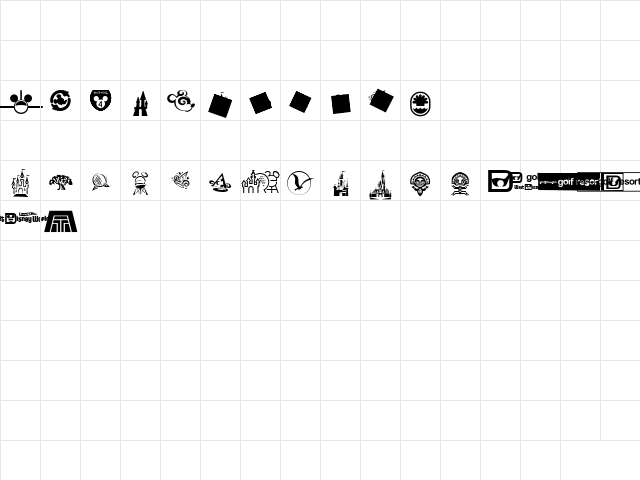
Mouse Tags Regular
| Designer | Steve Ferrera |
Design Context for Mouse Tags Typeface
Mouse Tags is a composed and adaptable typeface that performs quietly and consistently across a wide range of design contexts.